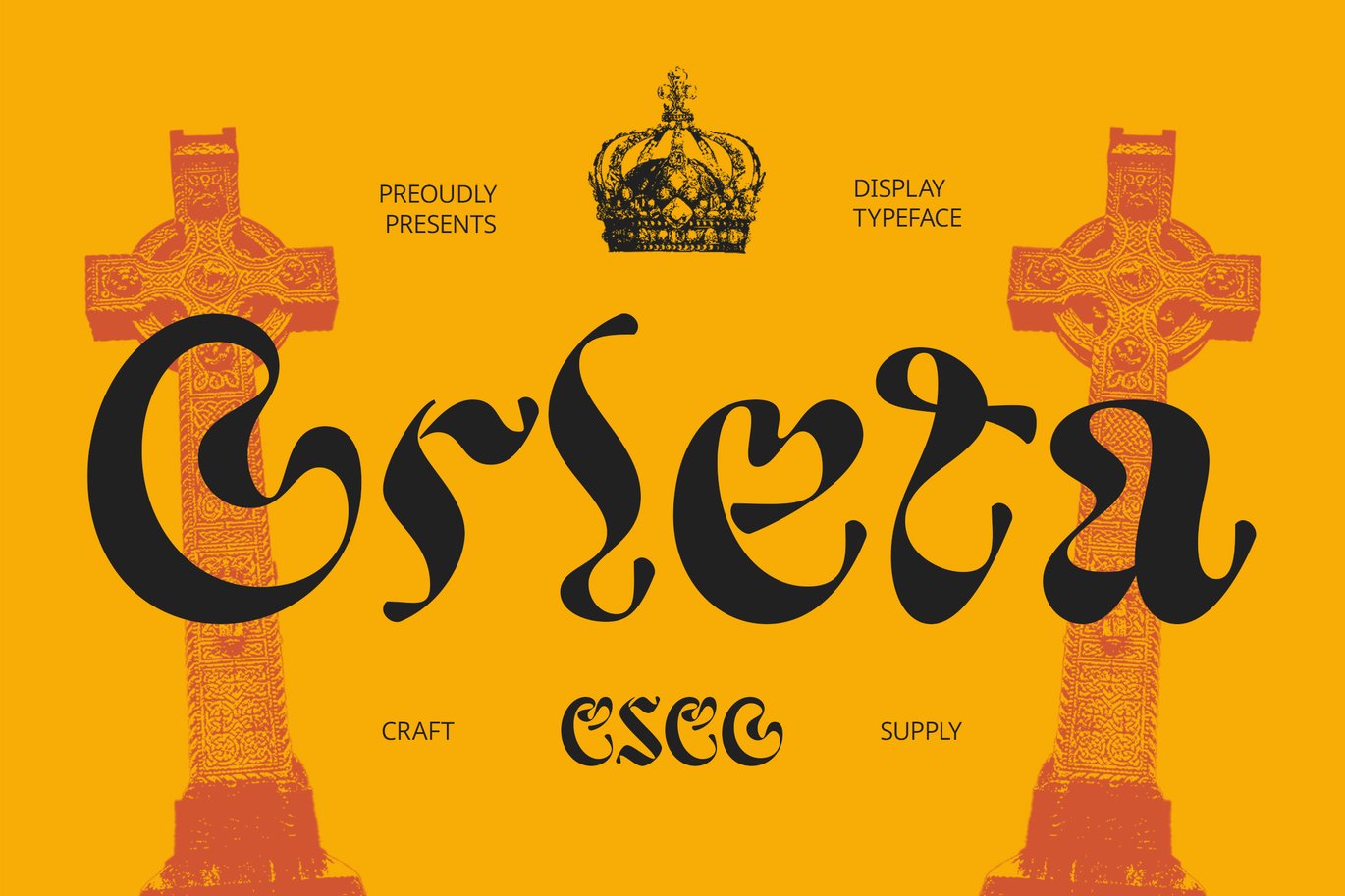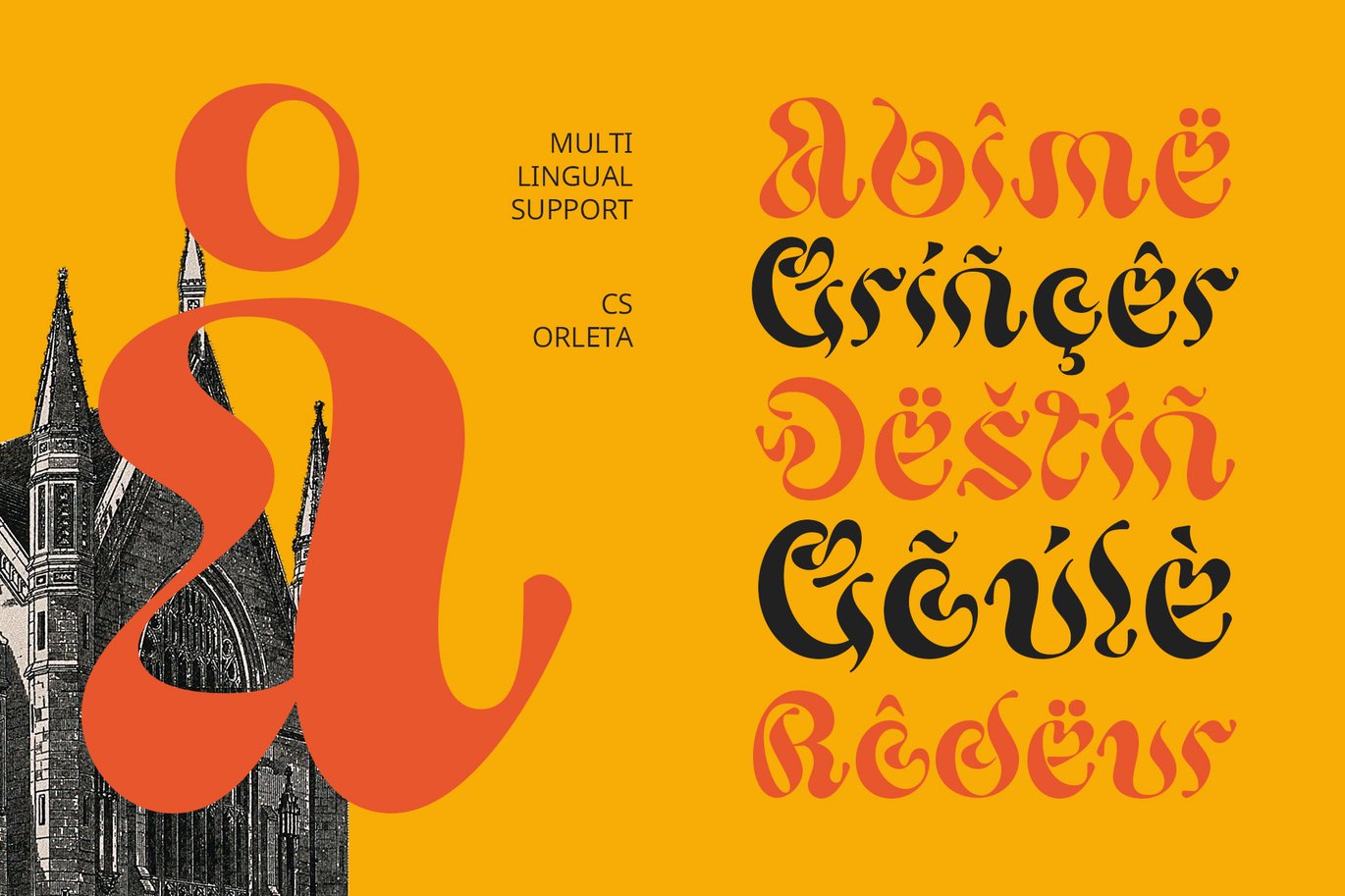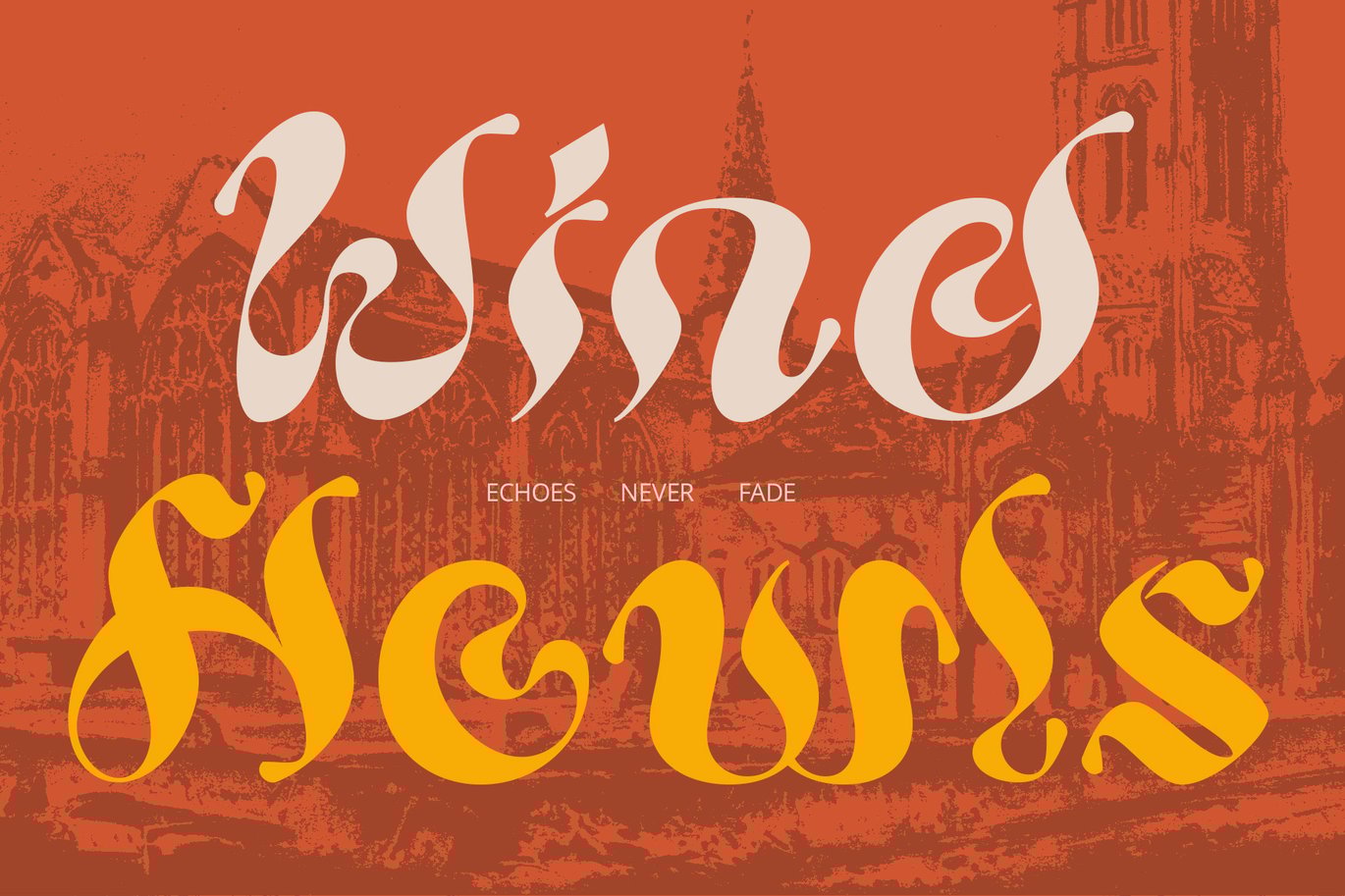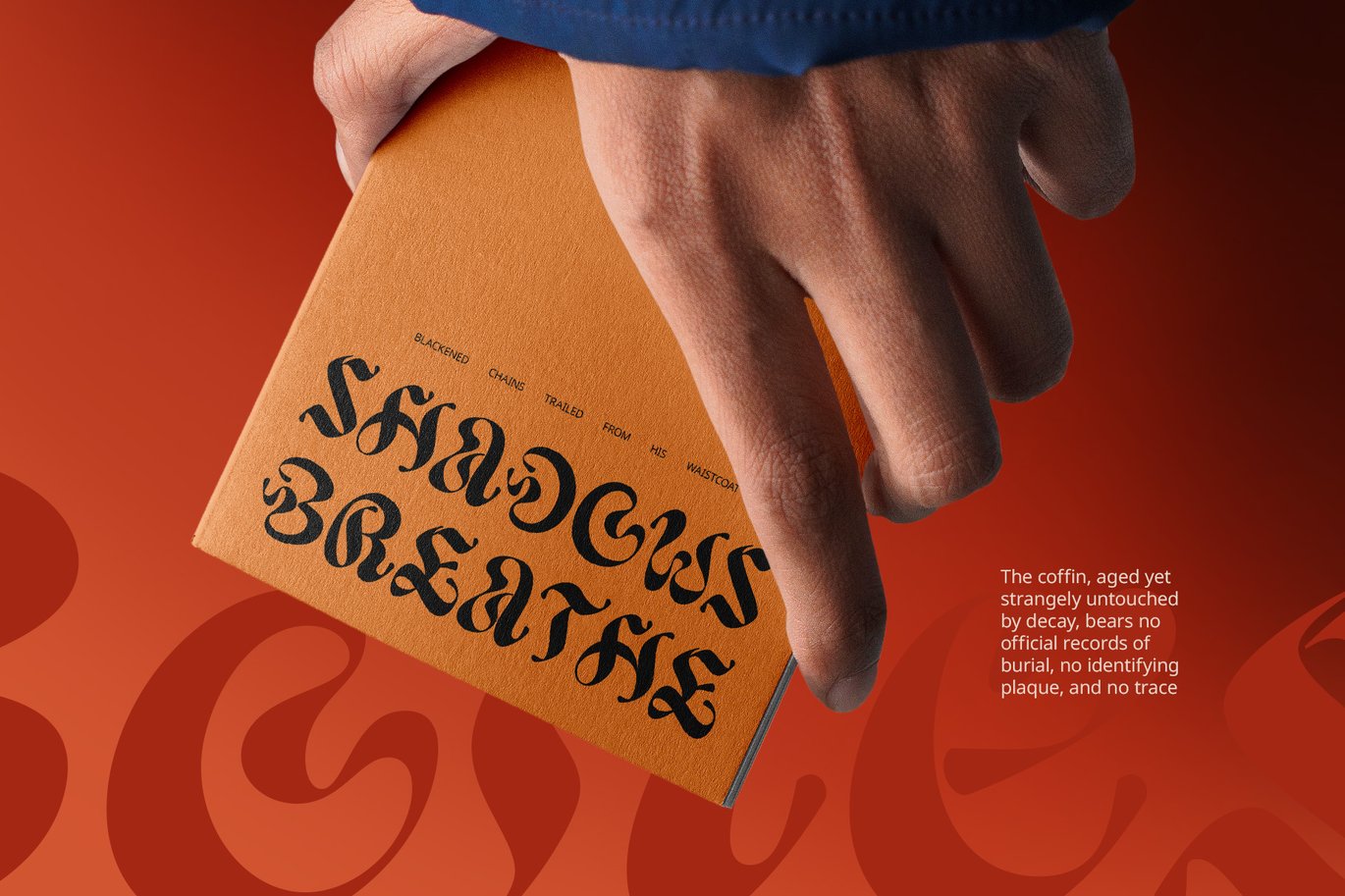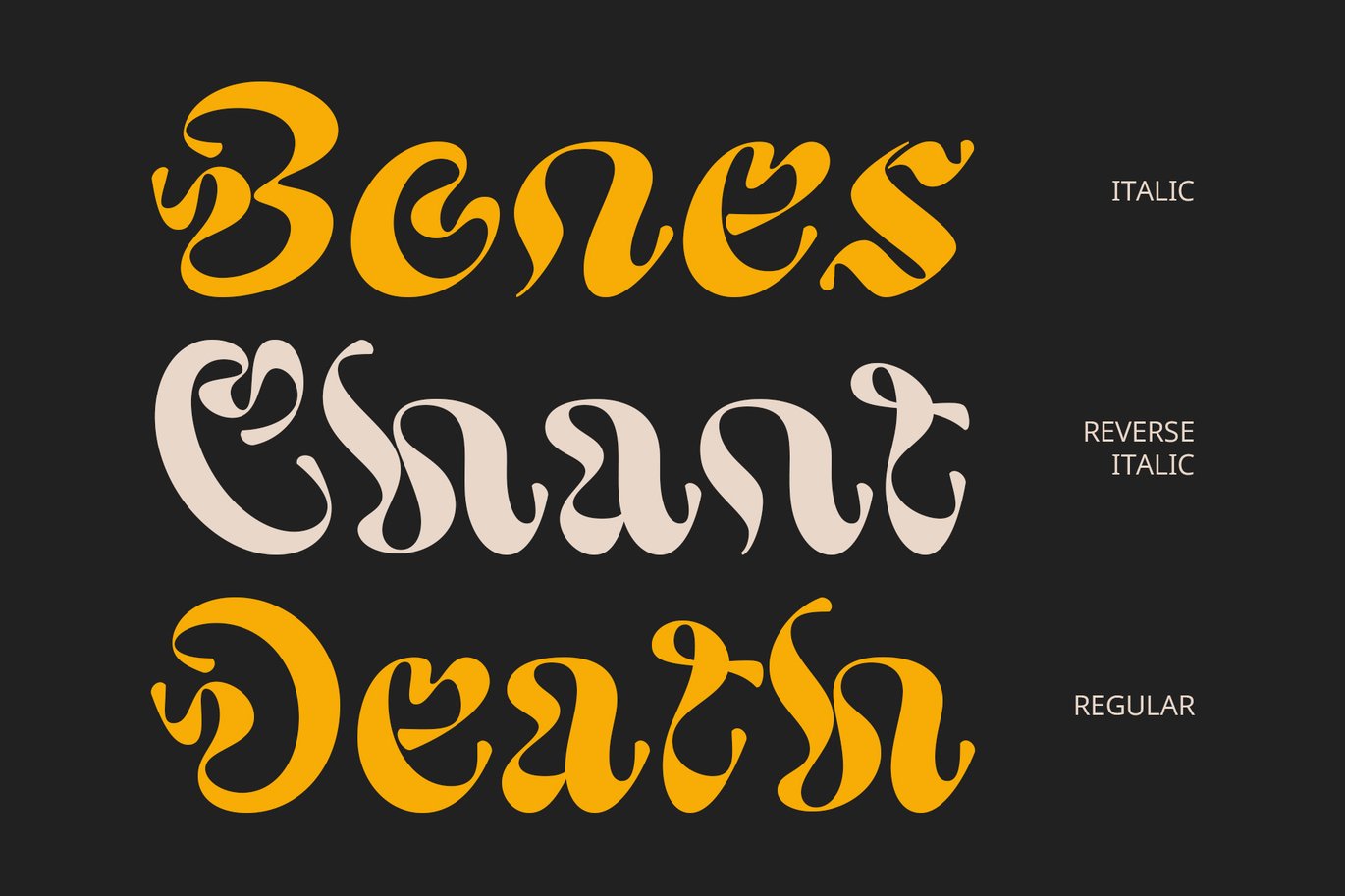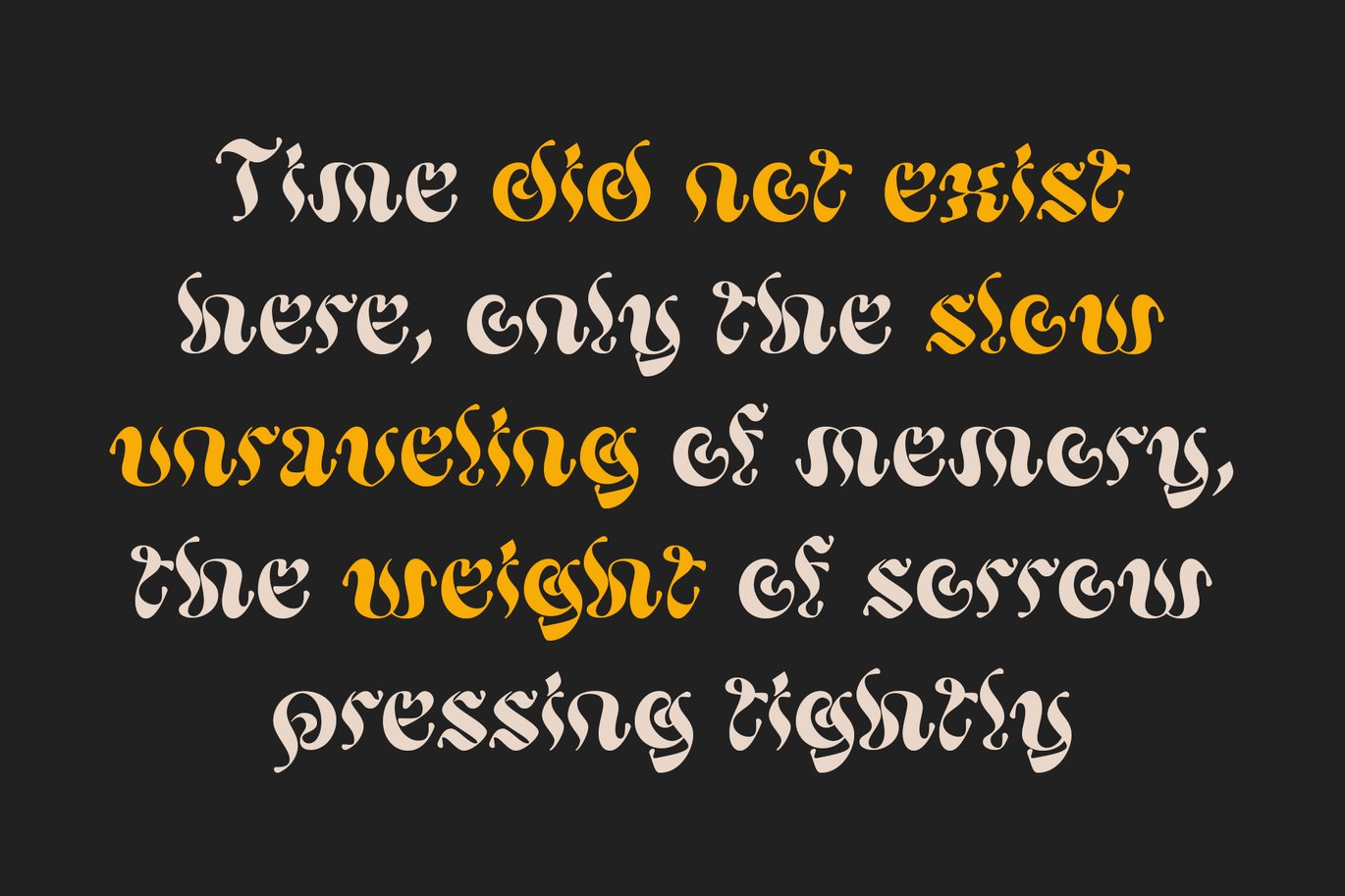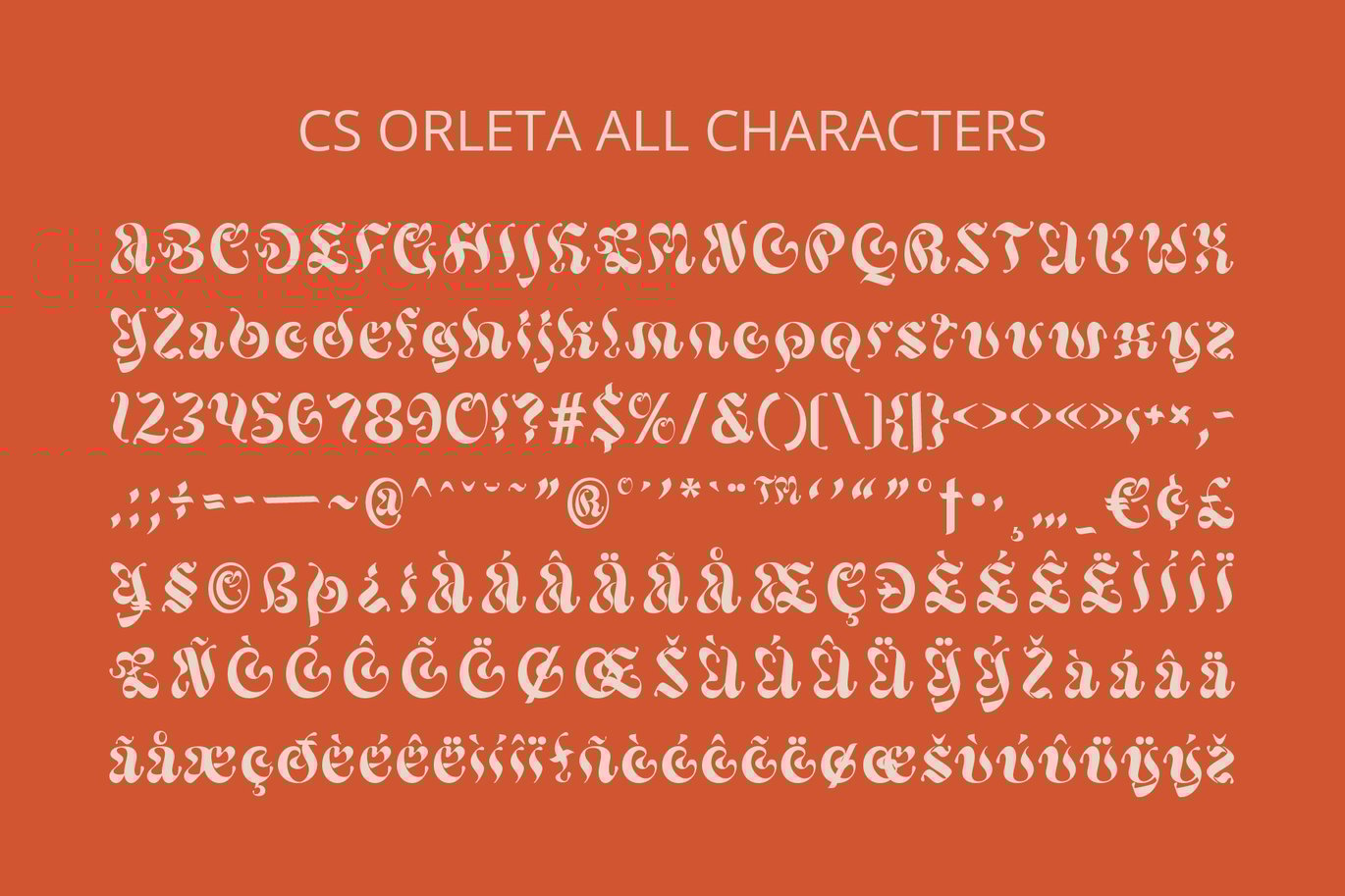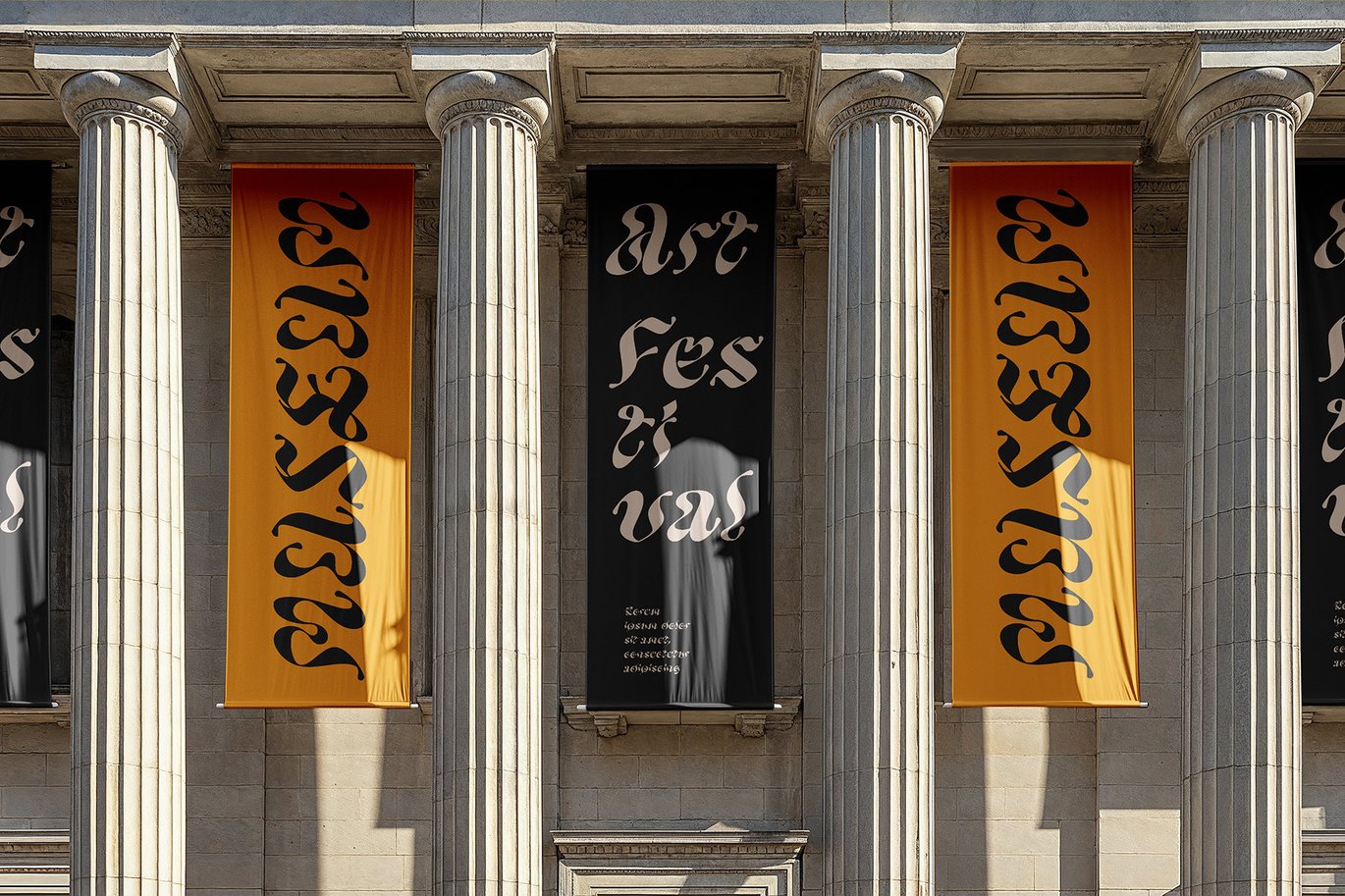
Orleta – Trippy Font
Orleta – Trippy Font: A Psychedelic Flow of Creativity
Modern Trippy Liquid Display Font
CS Orleta is a modern trippy liquid display font featuring wavy, organically flowing letterforms that create an illusion of constant motion. Inspired by psychedelic visuals, surreal art, and fluid typography, this font embraces a free-spirited and unconventional approach, making it perfect for designs that demand attention and evoke emotions. Its bold, hypnotic forms challenge traditional typography, making it an ideal choice for projects that prioritize expression, creativity, and individuality.
Funky and Vibrant Aesthetic
With its fluid, ever-changing structure, CS Orleta captures a funky and vibrant energy that makes any design stand out. The letterforms appear as though they are melting, shifting, or morphing, evoking the aesthetic of psychedelic posters, experimental art, and futuristic dreamscapes. Whether used in retro or modern design contexts, its playful yet surreal feel ensures an engaging and eye-catching result.